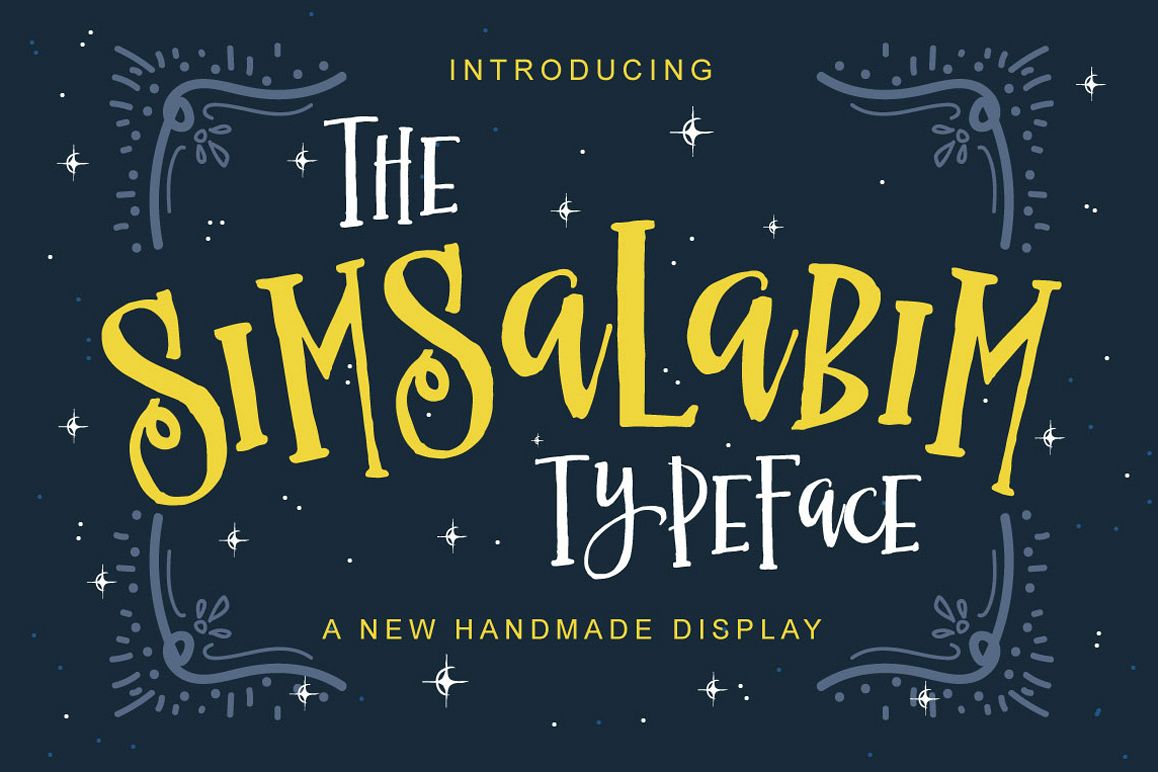
The Simsalabim Typeface
The Simsalabim Typeface is a new handmade and fun display font intended to use in retro and vintage design styles. It is suitable for poster, lettering, greeting card, t-shirt design etc.
This font contains with special ornamental uppercase that can be used to create a stand out and attractive message.Files Included :